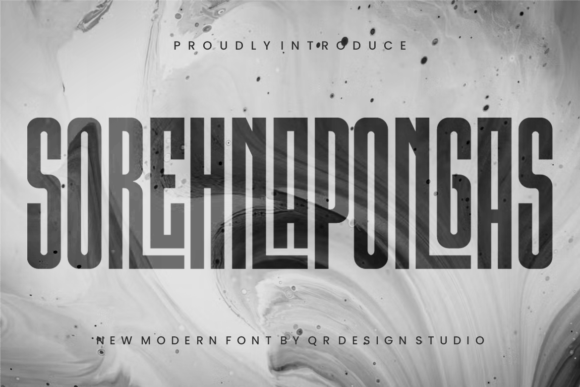
Embark on a Culinary Journey with Sorehnapongas Font: The Premium Choice for Food Menu Designs
Unleash the tantalizing flavors of your culinary creations with Sorehnapongas Font, the ultimate font for crafting mouthwatering food menus that leave a lasting impression. This bold and authentic display font is a masterpiece of digital artistry, meticulously designed to capture the essence of gastronomic delight.
Sorehnapongas Font: The Culinary Masterpiece
- Savor the boldness of this remarkable font, crafted to command attention and tantalize taste buds.
- Delight in the authentic charm of its design, evoking the warmth and allure of traditional culinary experiences.
- Experience the versatility of a font that effortlessly complements a wide array of food menus, from casual cafes to fine dining establishments.
Indulge in a Symphony of Flavors
- Let Sorehnapongas Font dance across your menu, inviting food enthusiasts to embark on a culinary voyage.
- Witness the transformation of ordinary dishes into culinary masterpieces, as this font elevates your menu to new heights of visual appeal.
- Entice your patrons with a feast for the eyes, igniting their curiosity and anticipation for the delectable creations that await them.
A Culinary Canvas for Your Brand
- Unleash your creativity and let Sorehnapongas Font become the culinary canvas for your brand.
- Craft a logo that embodies the essence of your culinary philosophy, leaving an indelible mark on the minds of your customers.
- Create promotional materials that tantalize taste buds and leave a lasting impression, ensuring your brand becomes synonymous with culinary excellence.
Sorehnapongas Font: The Ultimate Culinary Companion
- Discover the boundless possibilities of Sorehnapongas Font, a versatile font that seamlessly adapts to a multitude of branding projects.
- From sports-themed designs that capture the energy and passion of athleticism to captivating logos that embody the spirit of your brand, this font is your ultimate creative companion.
- Experience the joy of effortlessly transforming your creative visions into tangible realities, leaving a lasting impression on your audience.